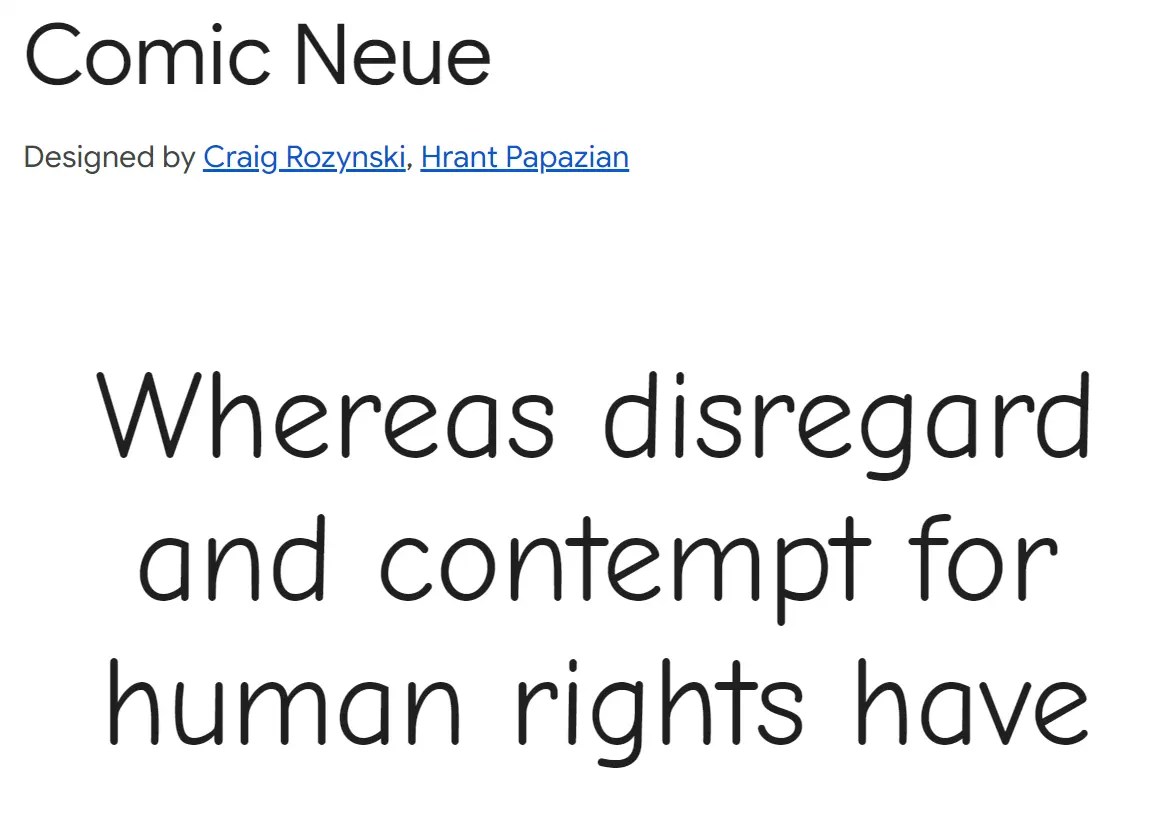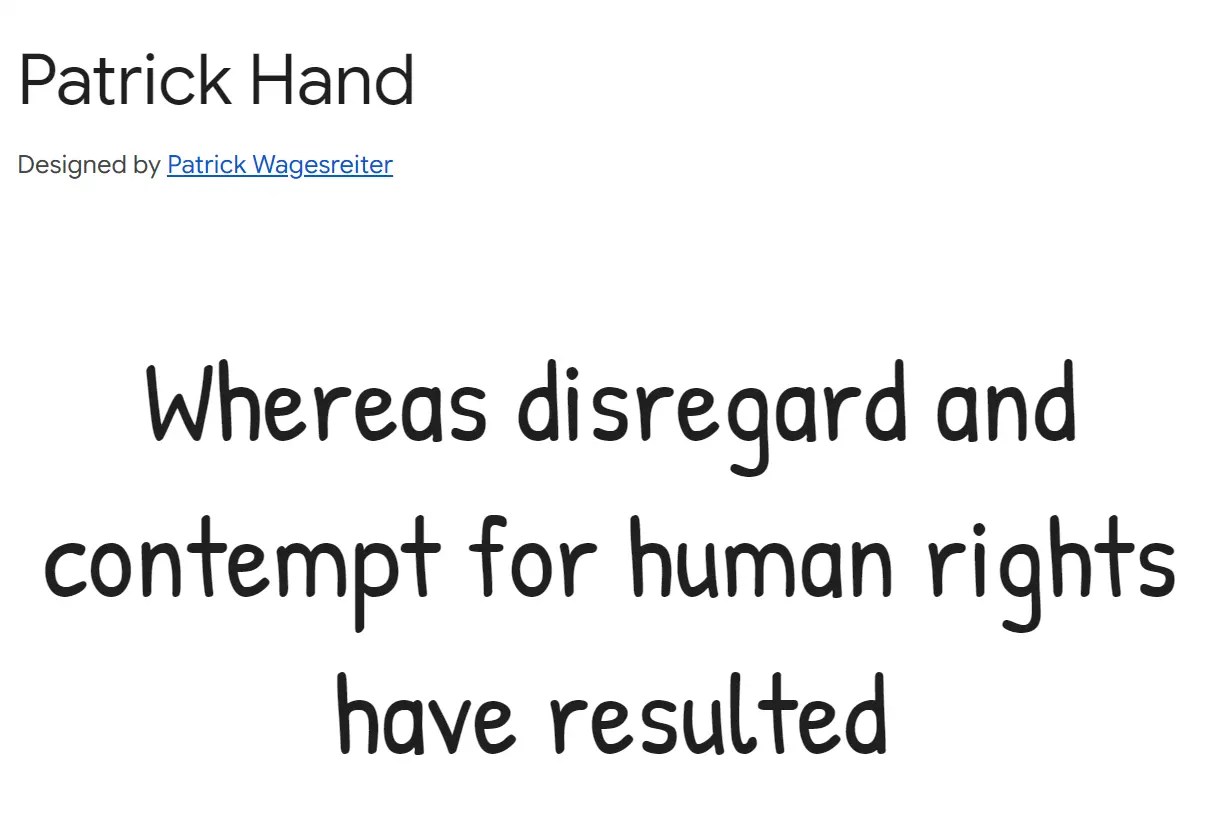
A good kids font should match the role it plays. Story text needs clear letterforms and comfortable spacing. Book titles, chapter headings, posters, invitations, and classroom graphics can use more playful shapes and stronger personality.
This collection includes 32 free kids fonts for children’s books and child-focused design projects. The selection ranges from readable sans serif and comic styles to handwriting, rounded display fonts, and bold decorative lettering.
32 Best Free Kids Fonts
Comic Neue
A casual comic-style family with cleaner proportions than many novelty cartoon fonts. Use it for dialogue, speech bubbles, captions, and short story text.
Patrick Hand
A neat handwritten font with an informal school-note feel. It suits character notes, diary entries, captions, activity sheets, and short pieces of dialogue.
Free xkcd Font: Handwritten TTF, WOFF & OTF
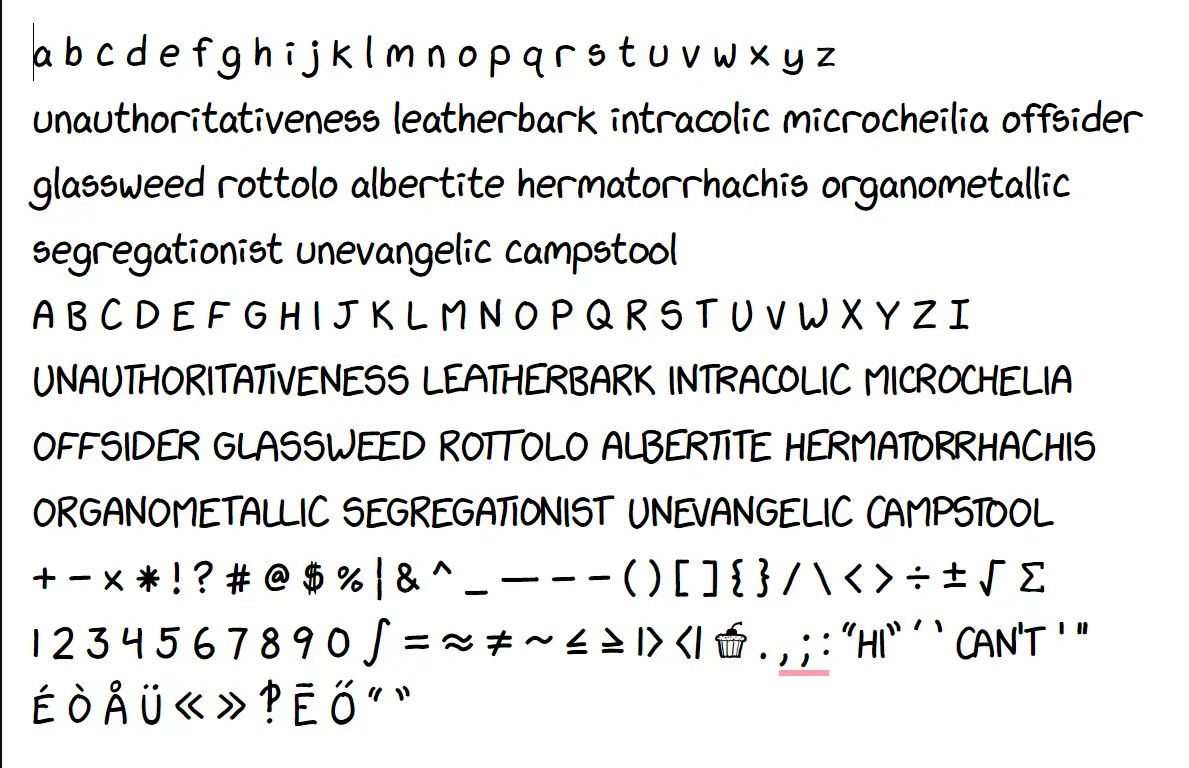
Bubble Sans: Free & Legible Comic Font
A neutral handwritten typeface created for clear comic book lettering. It draws inspiration from speech bubble lettering of the early 2000s.
You can use this font in children’s publications, where its even letterforms help new readers recognize words and follow a story.
Glina Script Handwritten Typeface
A free handwritten typeface that supports both Latin and Cyrillic alphabets and comes in two distinct styles. Great for children’s books, casual branding, greeting cards, and social media graphics that need a personal touch.
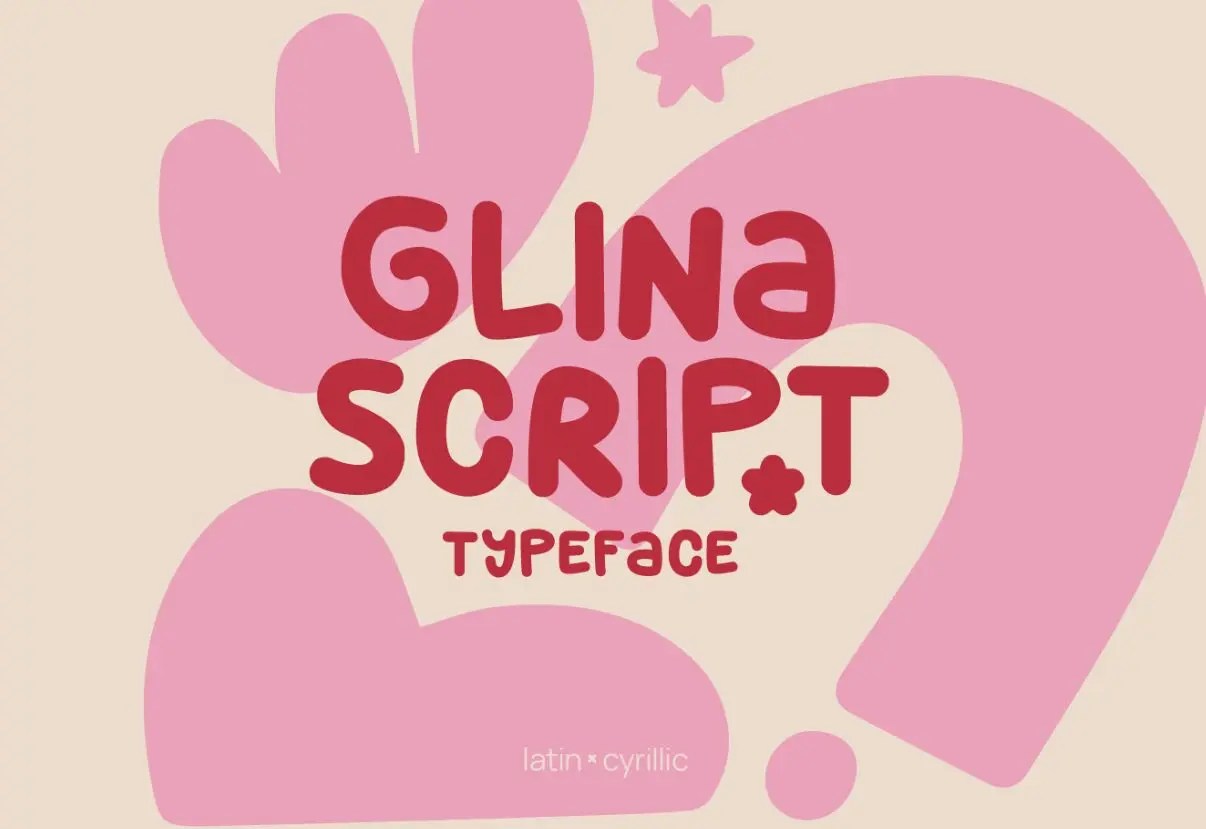
Quibble Playful Font for Cheerful Designs
A free hand-drawn display font with irregular, friendly letterforms and a playful tone.
Its loose handwritten style suits children’s book titles, classroom materials, greeting cards, posters, and other cheerful designs.
Chiicory Playful Handwritten Font
A playful handwritten font with soft, informal letterforms. It suits children’s book titles, greeting cards, posters, and casual branding. The source lists it as free for personal and commercial use.
Cookii Free Font
A bubbly, bold display font with oversized rounded forms. Use it for book titles, posters, stickers, packaging, and short text that needs a playful cartoon feel.
Children Interests Font
A quirky bold display font with irregular letterforms and a cheerful cartoon feel. It suits children’s book titles, invitations, labels, posters, packaging, and other short display text.
Children Books Free Fonts
A bold handwritten sans serif inspired by marker lettering. Its chunky forms suit children’s book titles, posters, classroom graphics, invitations, and playful branding.
Hello Spark Cute Font
A cute font duo with friendly, informal letterforms. It suits greeting cards, posters, clothing graphics, children’s titles, labels, and other short display text.
Bulito Typeface
A cute and playful typeface free for personal use.
Balpaq Free Comic Font
A casual comic font for speech bubbles, children’s titles, posters, and cartoon-style lettering. The source lists it as free for personal and commercial use.
ROCKEY Font
A bouncy display font with uneven letter placement and a cartoon feel. It suits children’s book titles, posters, educational graphics, and fantasy-themed designs. The current 1001 Fonts listing marks the free download for personal use only.
Retro Cartoon Font
A retro cartoon display font with mid-century character. It suits playful book titles, posters, labels, packaging, and nostalgic children’s graphics.
TOYZ FREE FONT
A cartoon font free for personal and commercial use.
BRICK FREE Font
A blocky display font with an irregular, playful character. Use it for children’s titles, posters, stickers, logos, and short headline text.
YeeMaff Free Font
A decorative display font for short, playful text such as children’s titles, posters, stickers, and logo concepts.
Retro Vibes Font
A hand-drawn retro display font with a groovy cartoon character. It suits book titles, posters, packaging, and playful branding where large type carries the design.
The Lima FREE FONT
A rounded playful typeface suited to children’s titles, posters, labels, and short display text. The source lists it as free for personal and commercial use.
Swipy Free Font
A hand-drawn cartoon font with loose, playful shapes for titles, posters, stickers, and informal children’s graphics.
No Virus Free Font
A playful display font offered by the creator for personal and commercial projects. It suits posters, children’s titles, packaging, and short promotional text.
Hoola Font Free
An uneven, chunky handwritten font with a playful feel. Use it for children’s titles, posters, greeting cards, stickers, and short display text. The creator links to a separate commercial-use license.
PLAYFUL Font
A free display font with an informal, expressive style for children’s titles, posters, social graphics, and short decorative text.
Which fonts are useful for children’s book titles?
Bubble Sans, Children Books, Cookii, Balpaq, and ROCKEY are useful options for large titles and short display text. The right choice depends on the book’s illustration style, age range, and tone.